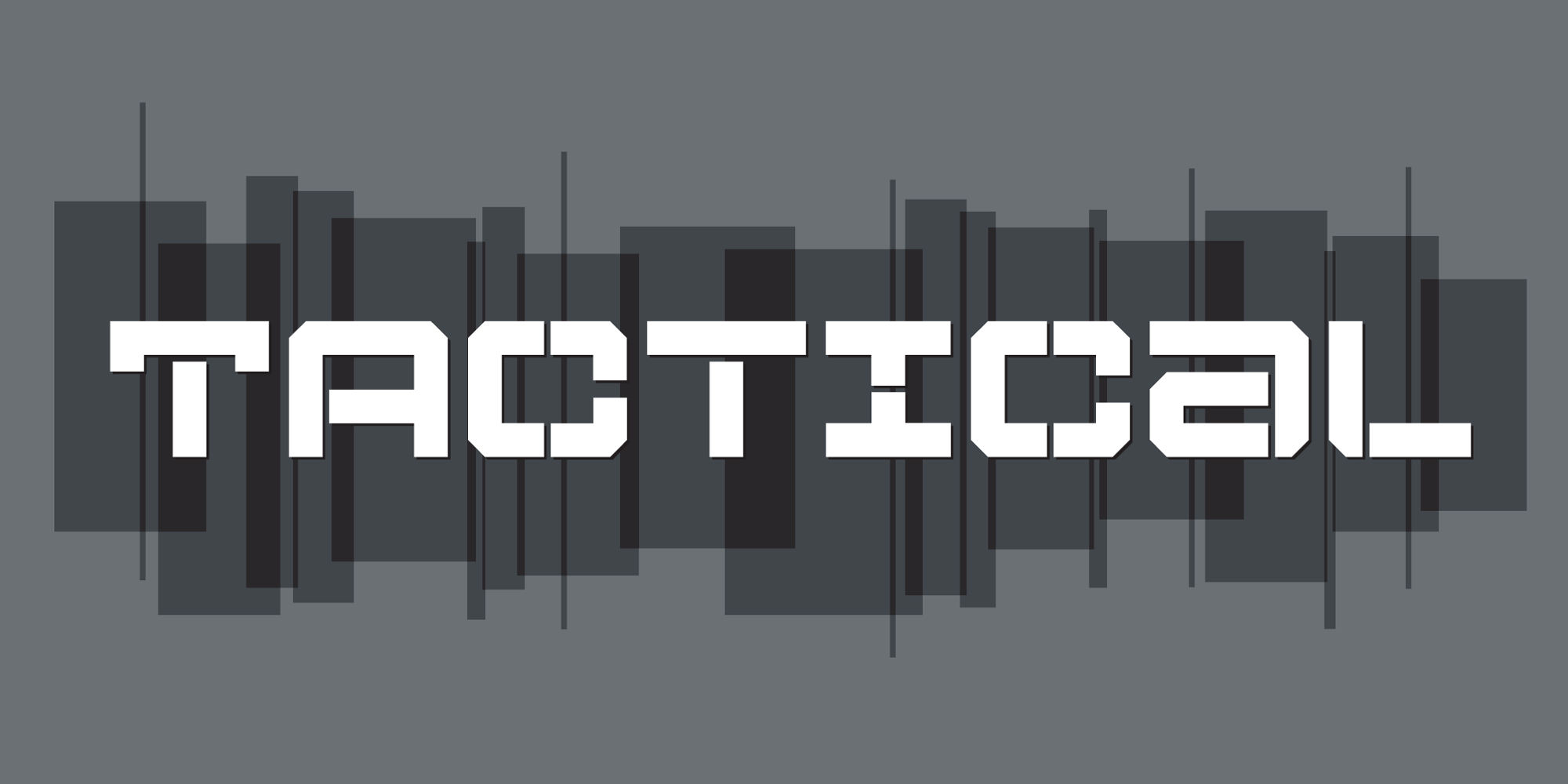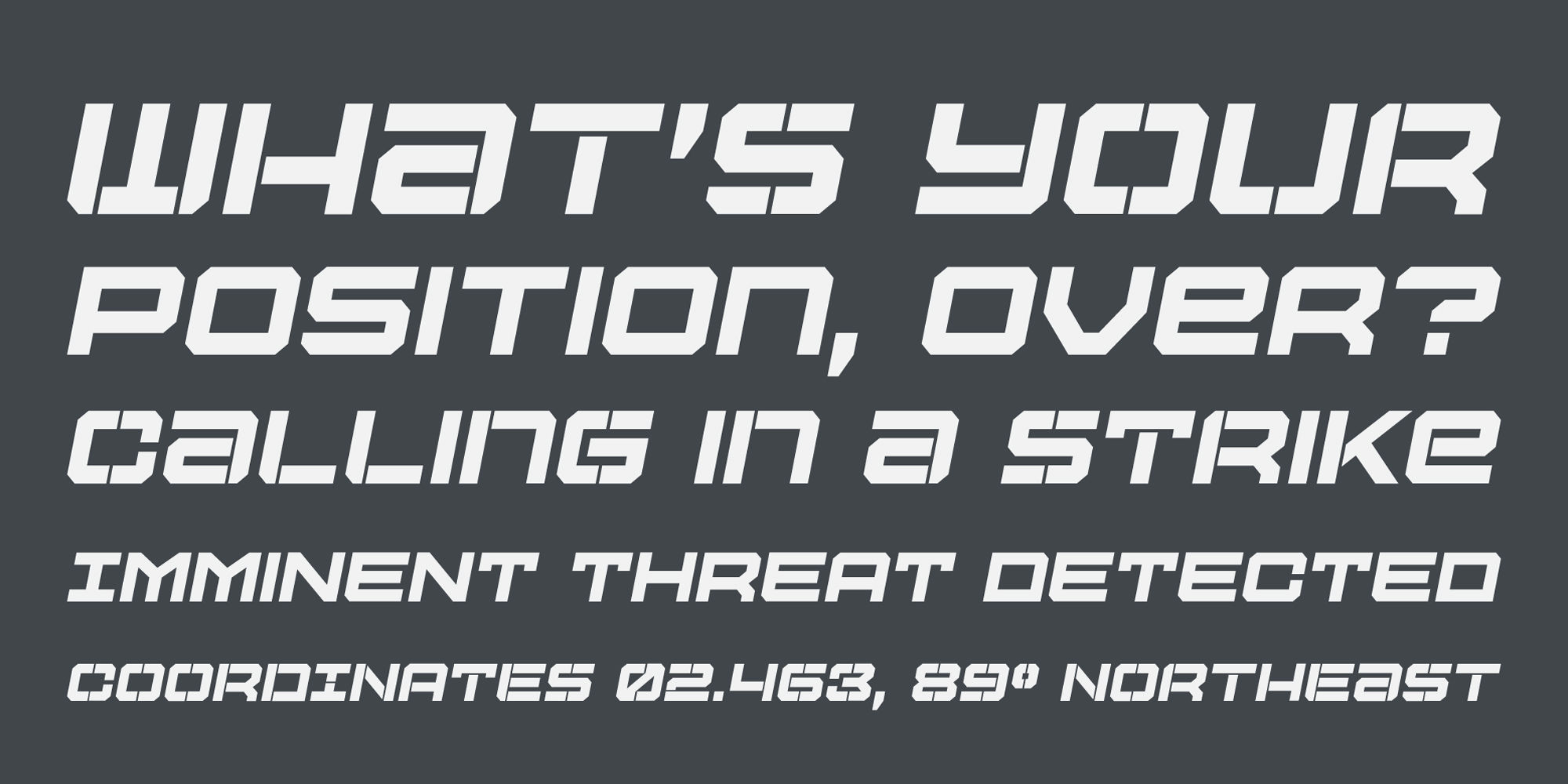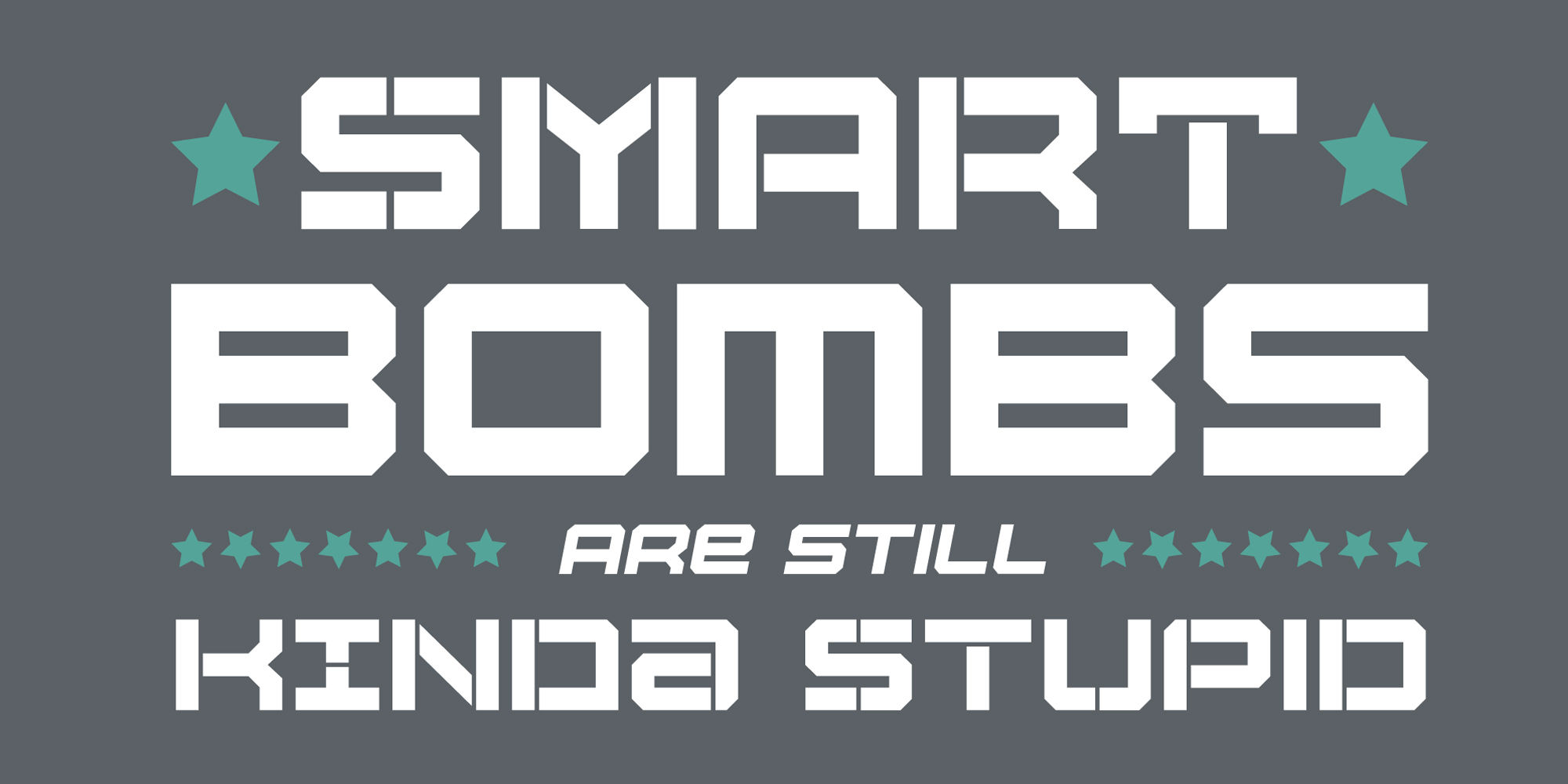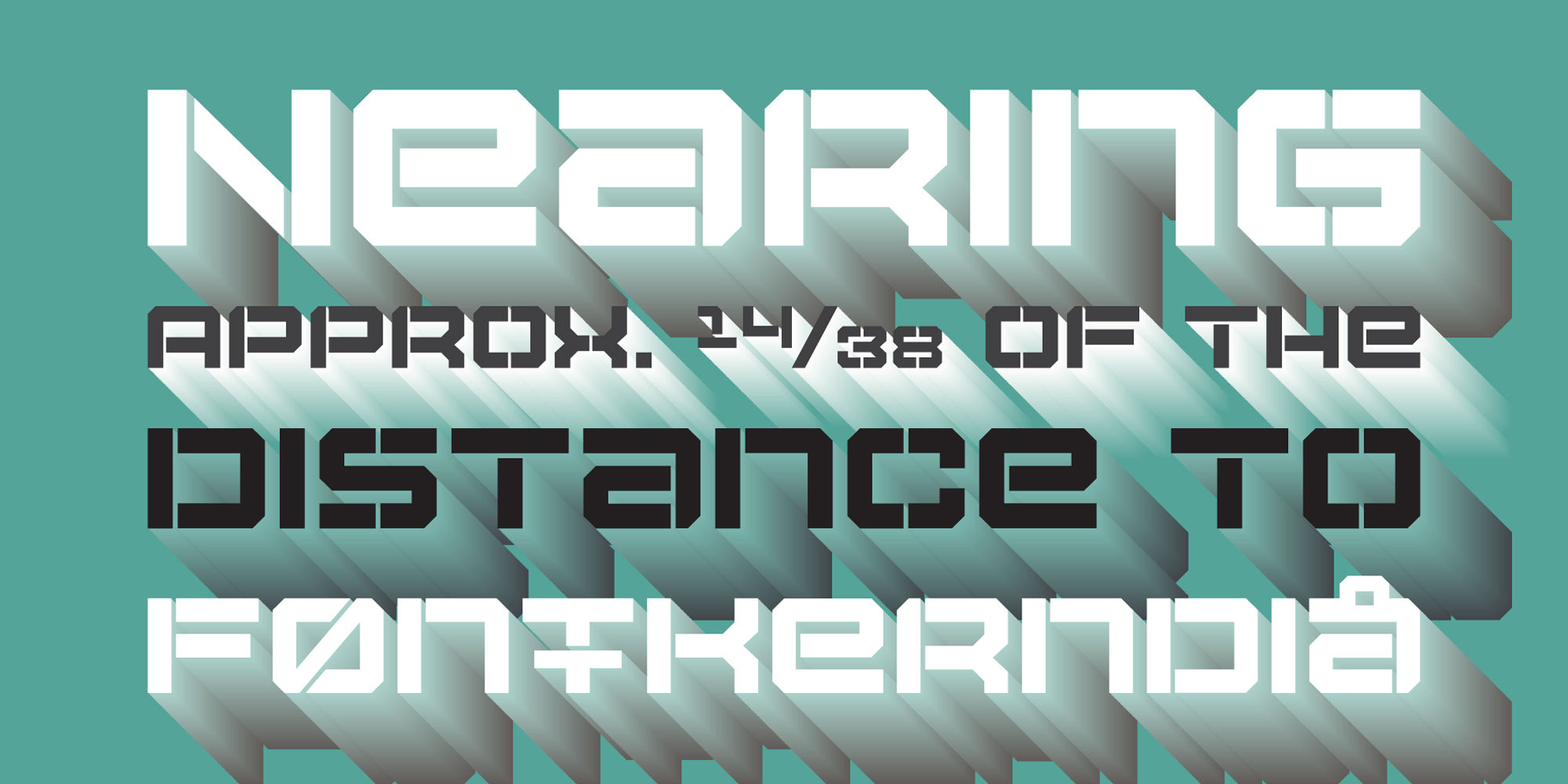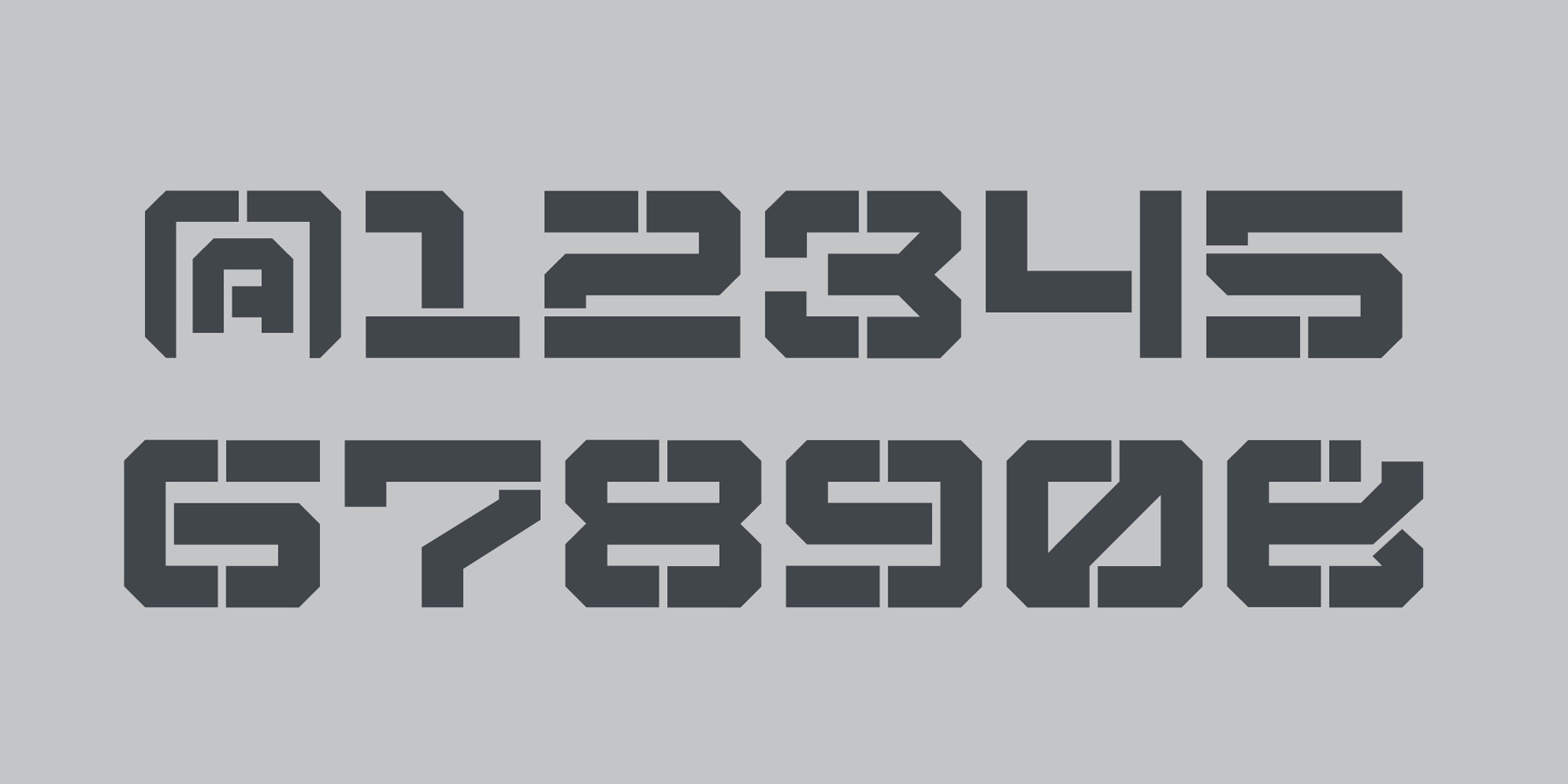
Tactical
Styles:4
RegularObliqueStencilStencil Oblique
Tactical is nothing more than a testosterone-laced typeface. Rigid, mechanical and unforgiving.
Originally conceived in 2007 while I was working through the early sketches of Ginza, Tactical features hard 45-degree angles and the presence of a curve for curve’s sake is just not there. Complimenting the original is a Stencil variant (inspired by the military, marathon video game, explosion-influenced name) and matching Obliques—altogether creating a sharply coordinating family.